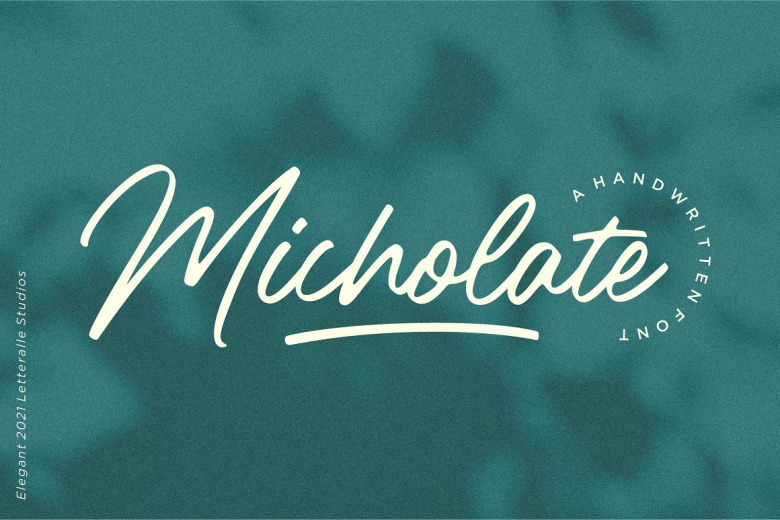
Micholate Font
Handwritten script font This is very warm in feeling and quite suitable for script. Micholate can be used to make handwriting logos, T-shirts designs, merchandise quotes and social media posts, advertising and much more! Micholate has a set of characters for a variety of international languages including accents, as well as ligatures that make the text look more natural.
Micholate Handwritten Script Font